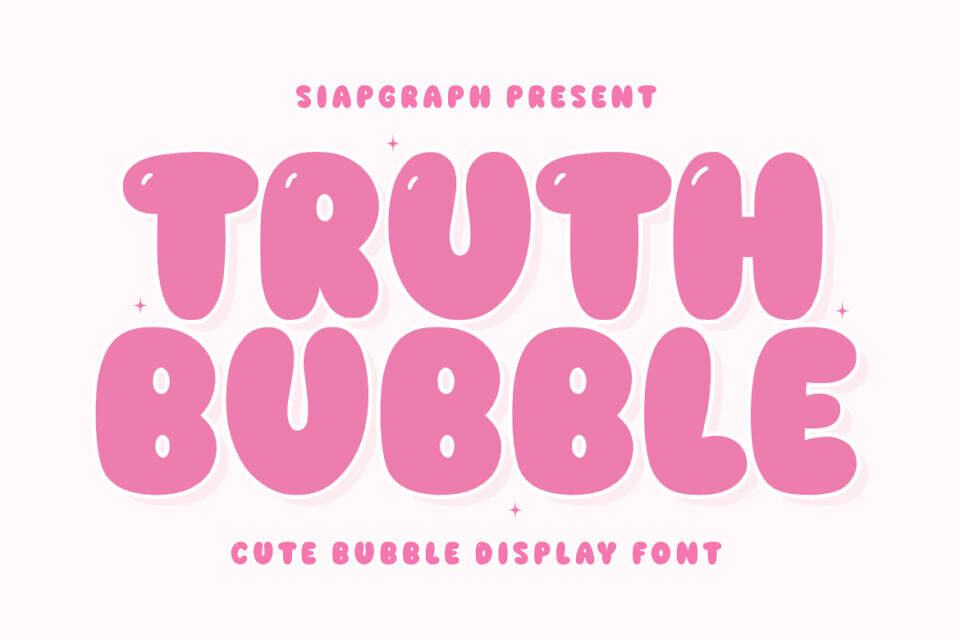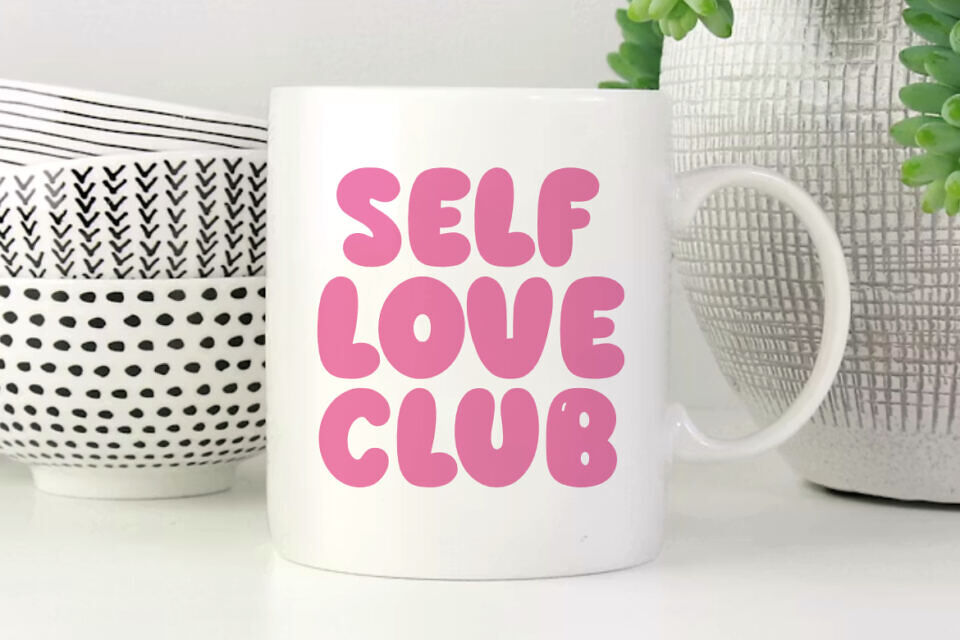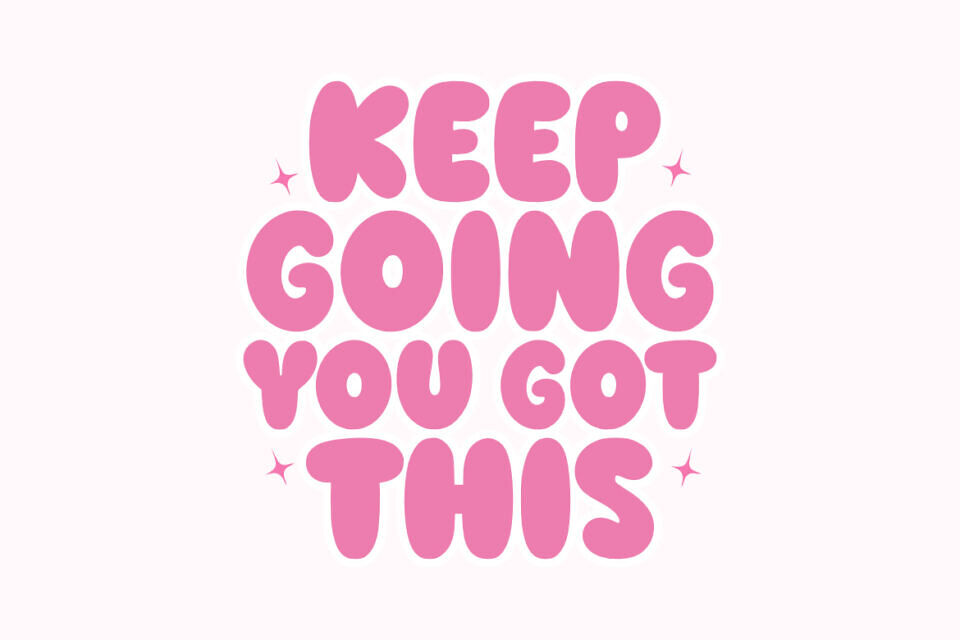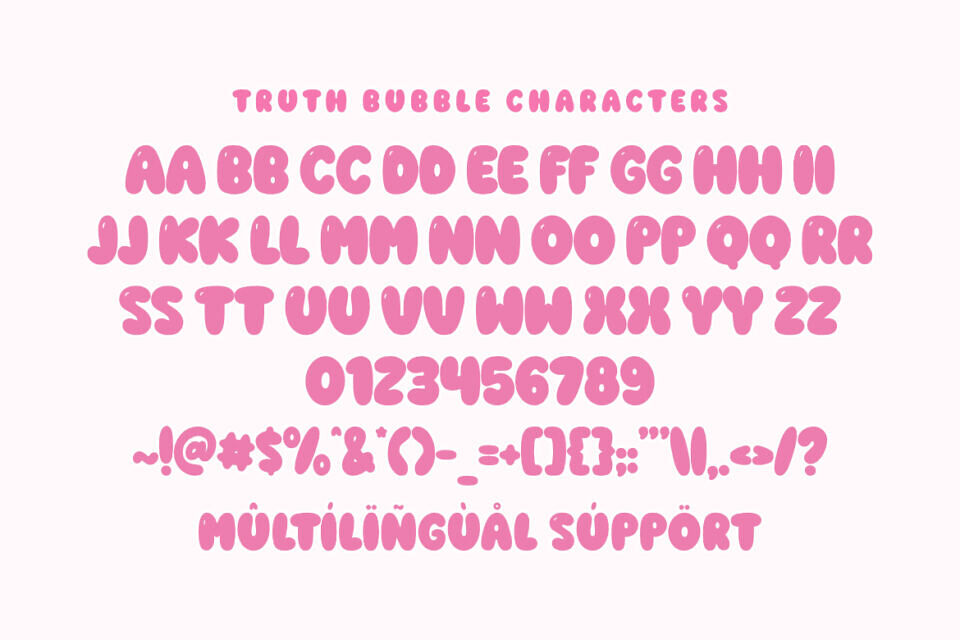
Truth bubble is a cute bubble display font designed to bring a soft, friendly, and playful atmosphere to your creative projects. Featuring thick, rounded characters with delicate glossy highlights, this typeface captures a joyful, bubbly aesthetic that is both modern and approachable.
Its bold, clean construction is specifically optimized for the crafting community, ensuring a seamless and easy cutting experience for all your vinyl projects, sublimation, and digital designs. Great for holiday themes such as Birthdays, Summer parties, Children’s Day, and Valentine’s Day, adding a sweet, optimistic, and bubbly personality to your seasonal design collections!